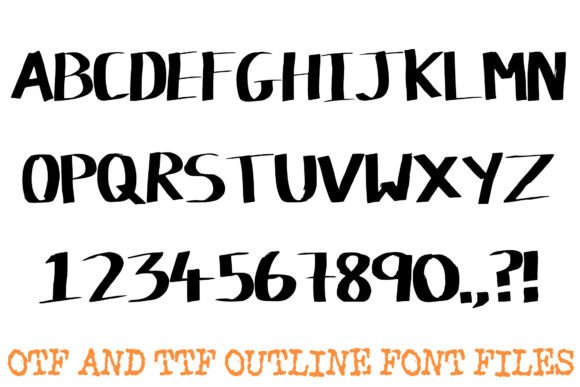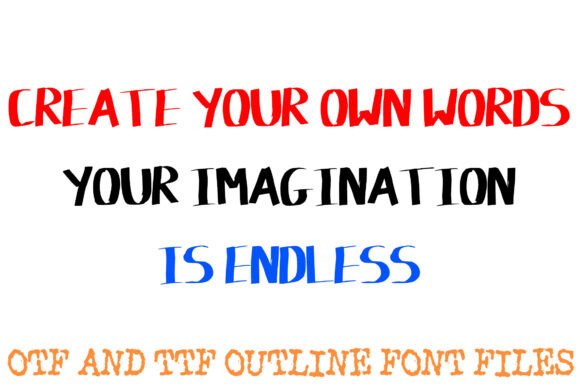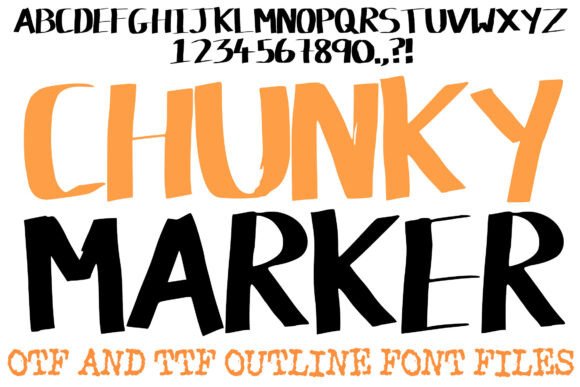
Unleash Your Creativity with the Chunky Marker Font
Are you tired of using the same old fonts in your designs? Do you want to add a touch of edginess and creativity to your work? Look no further than the Chunky Marker Font! This hand-drawn typeface is perfect for designers and crafters who want to make a statement with their designs. With its raw, energetic feel and unique “ink-bleed” texture, the Chunky Marker Font is sure to take your designs to the next level.
The Perfect Choice for Edgy Designs
The Chunky Marker Font is designed to capture the essence of a real permanent marker, with heavy strokes and a distinctive “ink-bleed” texture at the edges. This gives the font a high-contrast, “broad-tip” aesthetic that adds a sense of urgency and creative flair to any design. Whether you’re creating edgy streetwear branding, high-impact event posters, gritty YouTube thumbnails, or urban-style digital scrapbooking, this font is the perfect choice.
Authentic Ink Aesthetic
One of the standout features of the Chunky Marker Font is its authentic ink aesthetic. Every character features realistic hand-written details, including sharp terminal points and heavy ink-saturated curves. This gives the font a professional yet rebellious vibe that’s perfect for designers who want to create bold and eye-catching designs. The font’s authentic ink aesthetic also makes it ideal for crafters who want to add a personal touch to their work.
High-Impact Weight
The Chunky Marker Font has a thick, chunky silhouette that ensures your text remains the focal point of any design, even from a distance. This high-impact weight makes it perfect for creating bold “SALE” banners, eye-catching posters, and customized stickers with an artisan, hand-lettered look. Whether you’re designing for print or digital, the Chunky Marker Font is sure to grab attention and make a lasting impression.
Why Choose the Chunky Marker Font?
So why choose the Chunky Marker Font over other fonts? Here are just a few reasons:
- Unique and edgy aesthetic: The Chunky Marker Font has a distinctive look that’s sure to set your designs apart from the crowd.
- Authentic ink texture: The font’s ink-bleed texture gives it a realistic, hand-written feel that’s perfect for designers who want to create authentic-looking designs.
- High-impact weight: The font’s thick, chunky silhouette ensures your text remains the focal point of any design.
- Professional yet rebellious vibe: The Chunky Marker Font has a professional yet rebellious vibe that’s perfect for designers who want to create bold and eye-catching designs.
How to Use the Chunky Marker Font
The Chunky Marker Font is versatile and can be used in a variety of design applications, including:
- Streetwear branding: Use the Chunky Marker Font to create bold and eye-catching logos and branding materials for your streetwear label.
- Event posters: Create high-impact event posters with the Chunky Marker Font that are sure to grab attention.
- YouTube thumbnails: Use the font to create gritty and eye-catching thumbnails for your YouTube videos.
- Digital scrapbooking: Add a touch of urban style to your digital scrapbooking projects with the Chunky Marker Font.
In conclusion, the Chunky Marker Font is a versatile and eye-catching typeface that’s perfect for designers and crafters who want to add a touch of edginess to their work. With its authentic ink aesthetic, high-impact weight, and professional yet rebellious vibe, this font is sure to take your designs to the next level. Whether you’re creating streetwear branding, event posters, YouTube thumbnails, or digital scrapbooking projects, the Chunky Marker Font is the perfect choice.